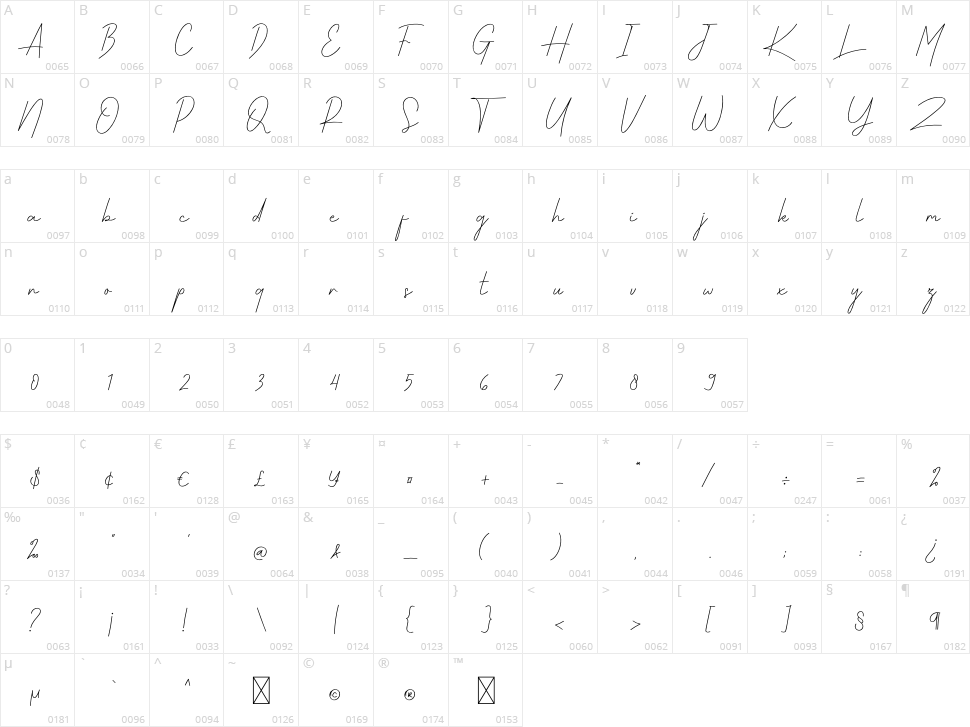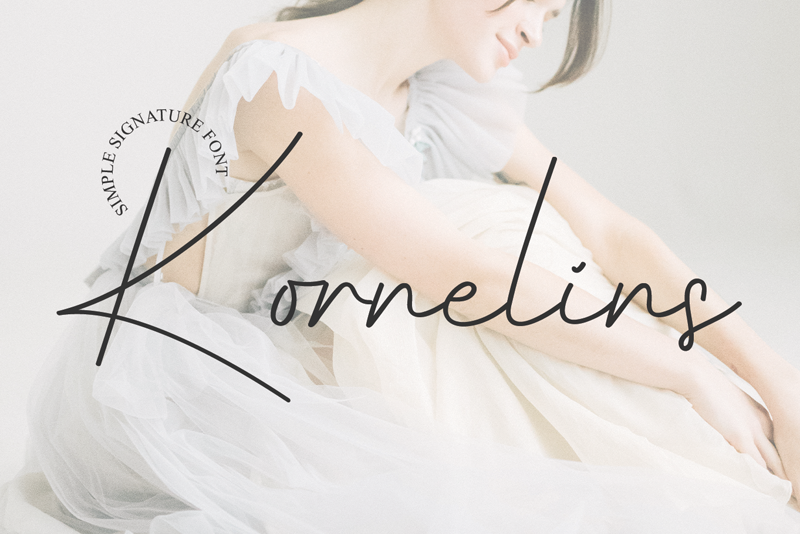
Kornelins
Kornelins is an exquisite handwritten font. Masterfully crafted to become a true favorite, it will add a touch of elegance to any creative project. This contemporary and fresh font will make your work stand out!